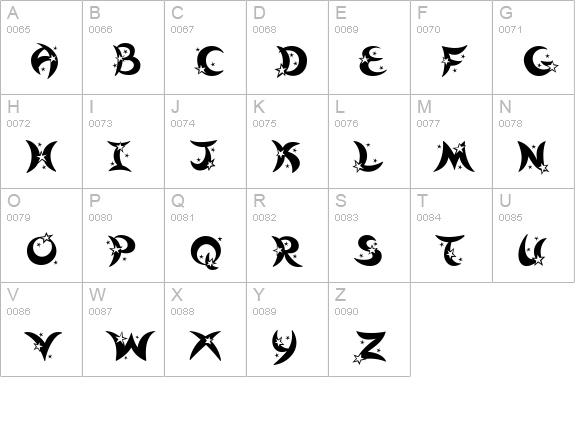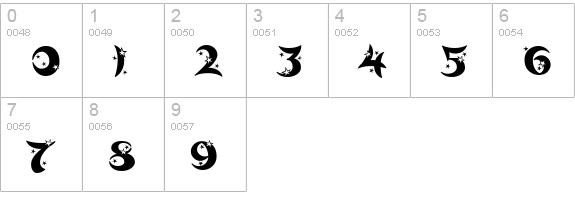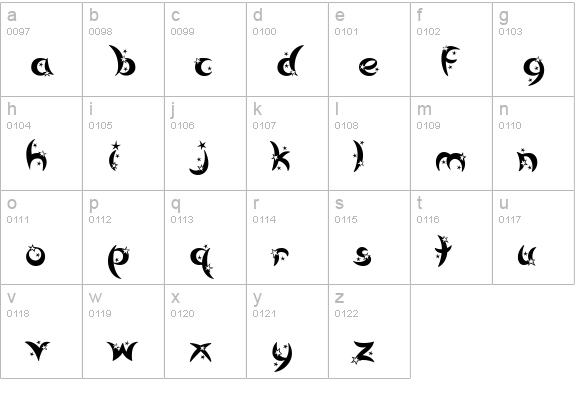
Moonstar font is a mesmerizing display typeface that exudes elegance and charm. With its delicate lines and graceful curves, Moonstar adds a touch of sophistication to any design project. This versatile font is perfect for creating eye-catching titles, headlines, logos, and more. The best part? Moonstar font is completely free to download at FontsMarket.com. Whether you're a professional designer or a hobbyist looking to spruce up your projects, Moonstar font is a fantastic addition to your font collection. Don't miss out on this stunning typeface that will elevate your designs to the next level. Download Moonstar font today and let your creativity shine!